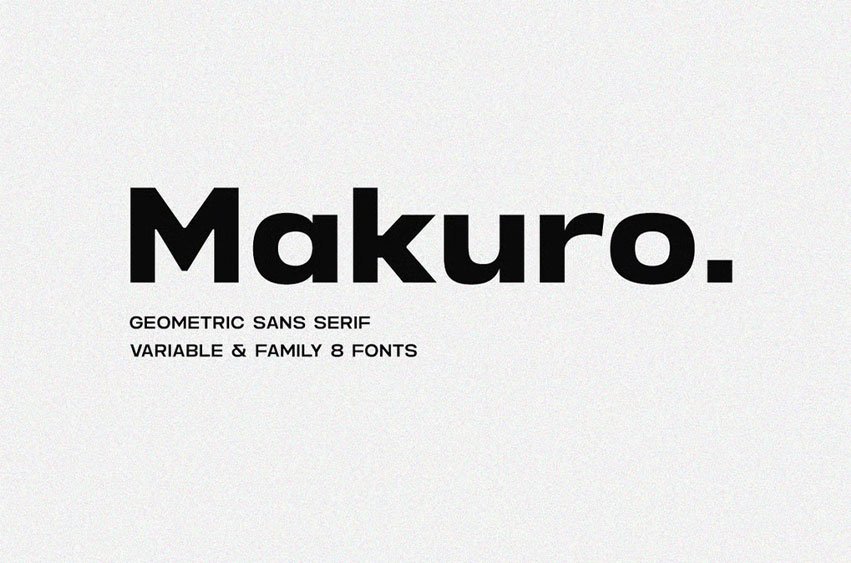
Makuro Font is a geometric sans serif type family crafted with clean proportions and smooth modern geometry. Built as both a Variable Font and a complete family of 8 styles, Makuro provides flexibility for designers who need consistent typography across branding, editorial, digital, and corporate projects.
Its balanced structure, uniform counters, and minimal aesthetic make Makuro a reliable choice for professional layouts—from large bold headlines to readable paragraph text. The variable font axis allows designers to fine-tune weight transitions, making Makuro adaptable for responsive design, UI/UX systems, and multi-platform usage.
Whether used for corporate identities, digital platforms, modern posters, or functional interfaces, Makuro offers clarity, versatility, and a contemporary look that feels timeless and efficient.
A modern geometric type system designed for creators who value precision, consistency, and clean visual communication.